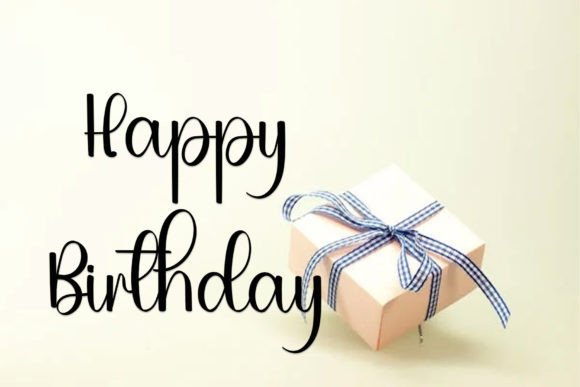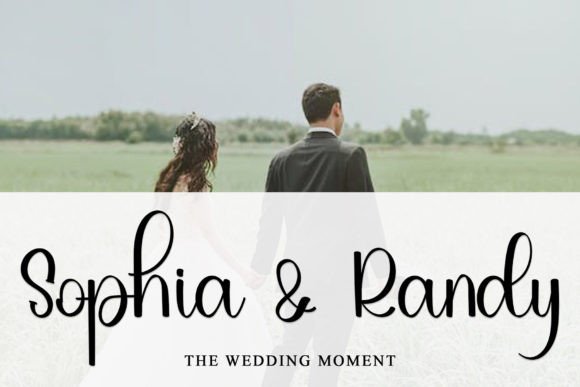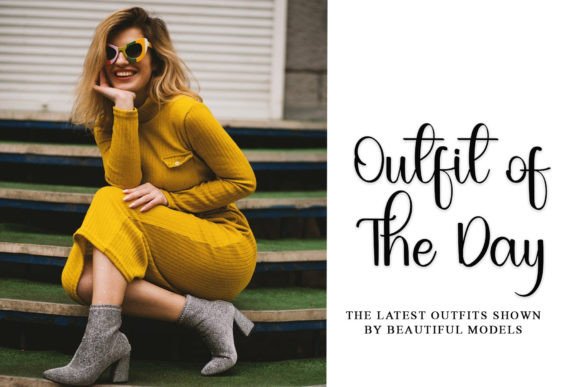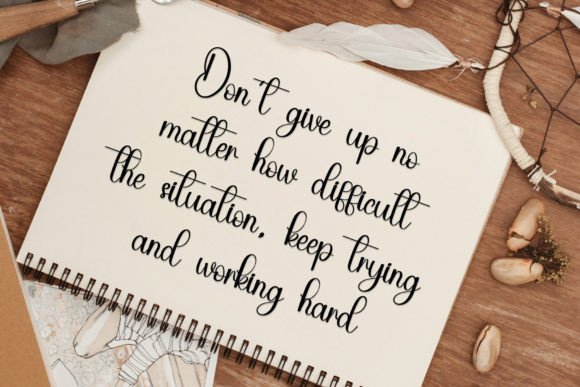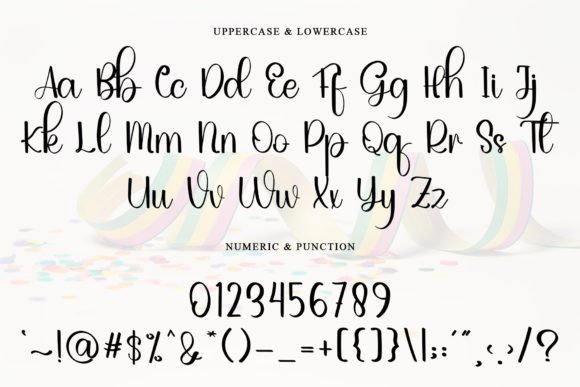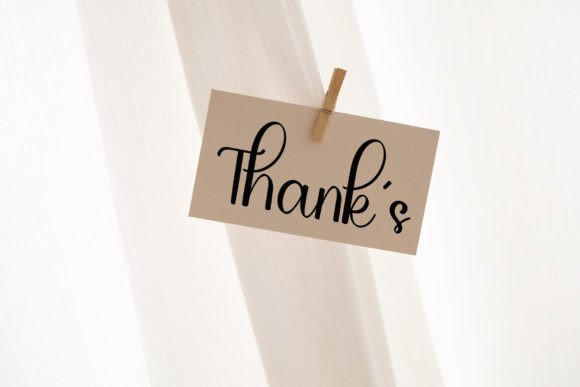
Introducing Graphic Font: Elevate Your Designs with Elegance and Flair
Are you on the hunt for a font that adds a touch of sophistication and playfulness to your designs? Look no further than Graphic Font, a beautiful handwritten script that’s perfect for a wide range of creative projects. In this article, we’ll dive into the world of Graphic Font, exploring its features, benefits, and uses, as well as providing tips and inspiration for designers and crafters alike.
What is Graphic Font?
Graphic Font is a carefully crafted handwritten font that’s designed to bring a touch of elegance and whimsy to your designs. With its flowing lines and delicate curves, this font is perfect for adding a personal touch to any project. Whether you’re creating social media graphics, crafting DIY projects, or designing marketing materials, Graphic Font is the perfect choice.
Key Features of Graphic Font
- Handwritten with love: Graphic Font is a true handwritten script, created with care and attention to detail to ensure a unique and personal feel.
- Elegant and playful: This font strikes the perfect balance between sophistication and playfulness, making it perfect for a wide range of designs.
- Versatile: Graphic Font can be used for everything from Instagram graphics to calligraphy scripts, and even DIY projects.
- Easy to read: Despite its elegant and cursive nature, Graphic Font is surprisingly easy to read, making it perfect for use in body text or captions.
Uses for Graphic Font
So, what can you use Graphic Font for? The possibilities are endless! Here are a few ideas to get you started:
- Instagram graphics: Add a touch of elegance to your Instagram feed with Graphic Font. Use it to create eye-catching captions, quotes, or even Instagram Stories.
- DIY projects: Graphic Font is perfect for DIY projects like crafting, scrapbooking, or woodworking. Add a personal touch to your projects with this beautiful handwritten script.
- Calligraphy scripts: Use Graphic Font to create stunning calligraphy scripts for special occasions like weddings, birthdays, or anniversaries.
- Marketing materials: Graphic Font can add a touch of sophistication to your marketing materials, including brochures, flyers, or business cards.
Tips for Using Graphic Font
Here are a few tips to help you get the most out of Graphic Font:
- Experiment with colors: Graphic Font looks stunning in a range of colors, from bold and bright to soft and pastel. Experiment with different colors to find the perfect fit for your design.
- Mix and match: Don’t be afraid to mix and match Graphic Font with other fonts or graphics to create a unique and eye-catching design.
- Pay attention to spacing: As with any font, pay attention to spacing to ensure your text is easy to read and visually appealing.